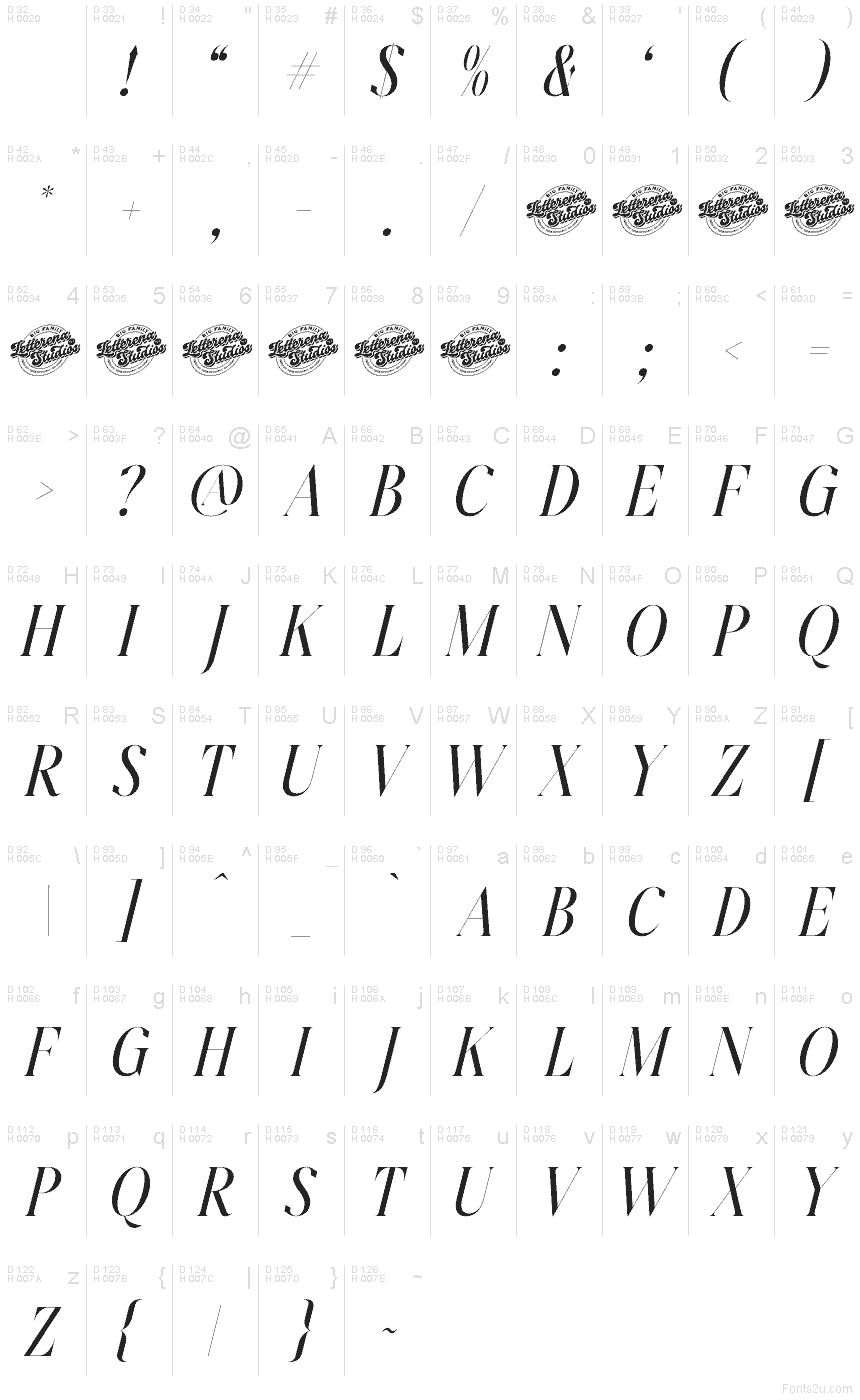
Amodhev DEMO VERSION Italic
Amodhev Italic font by Letterena Studios is a free italic serif typeface that swoops in with blade-sharp thicks, whisper-thin hairlines, and a taught forward lean. Part of the Amodhev family, it brings a glossy, couture feel—think ink pulled across smooth paper—creating instant drama in a few letters. The spacing is tight and the forms are slender, delivering that high-end, editorial snap without shouting.
Using Amodhev Italic, headlines and logos come off refined yet assertive—great for fashion branding, beauty packaging, magazine covers, boutique signage, event posters, and wedding stationery. This free font thrives at larger sizes where its delicate contrasts can breathe; add a touch of tracking for airy elegance. For body copy or captions, pair it with a clean grotesque sans to keep the spotlight on the lettering.